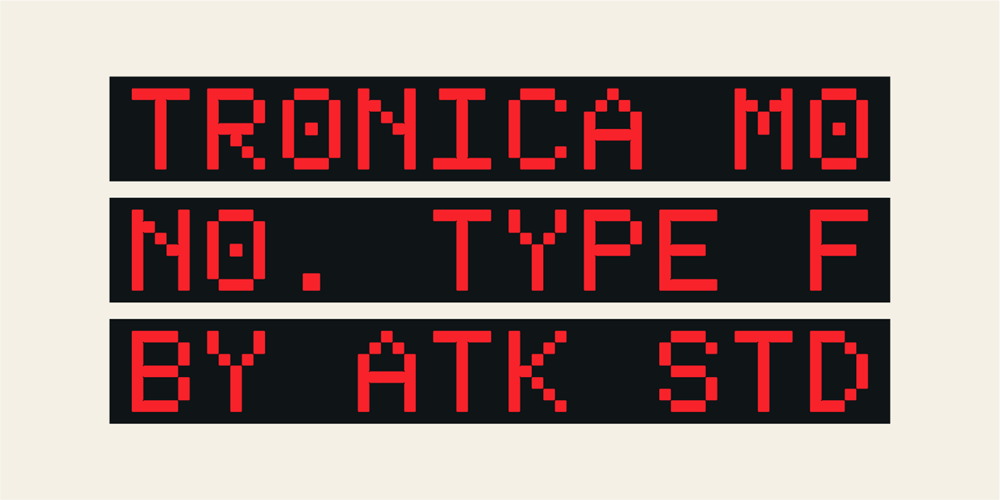
Tronica Mono Font Family was designed by Radinal Riki and published by ATK Studio. Tronica Mono contains 1 styles and family package options. Tronica Mono™ is a new stencil modular monospaced font designed with pixel taste and solid font style by Radinal Riki. Come in single weight, uppercase and lowercase with a character set that covers over 100 languages.